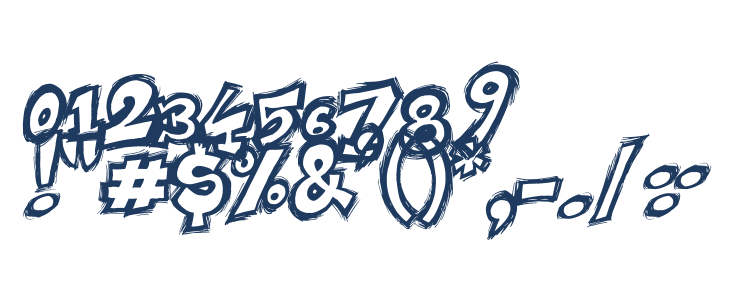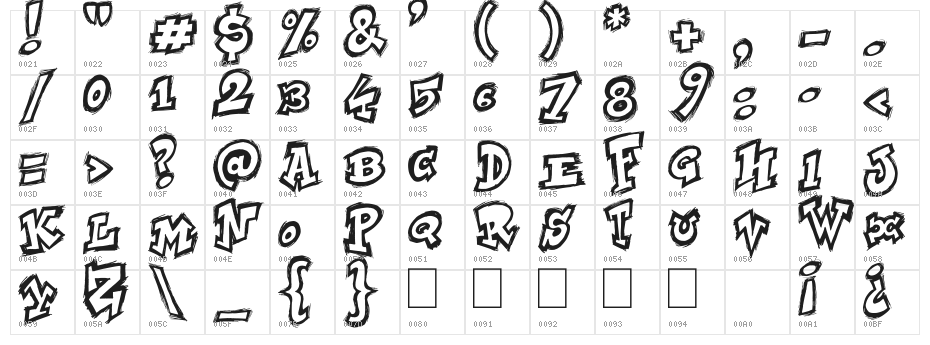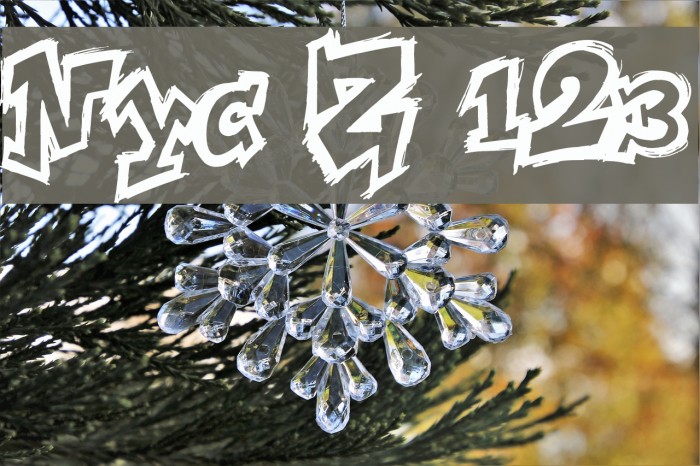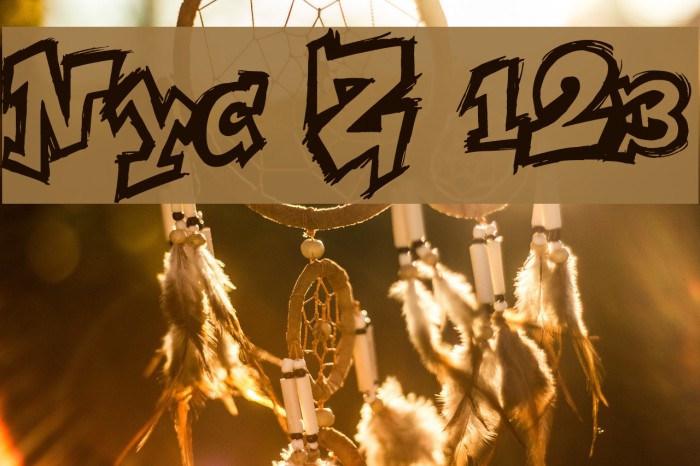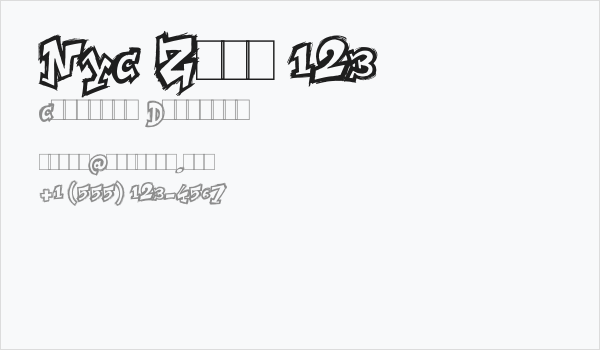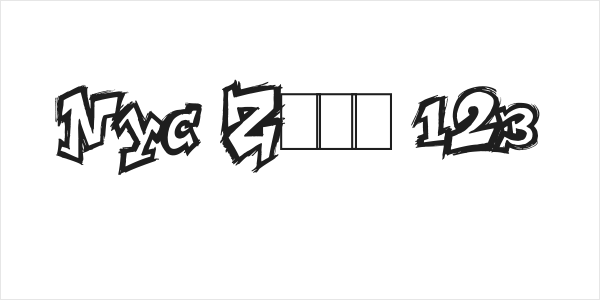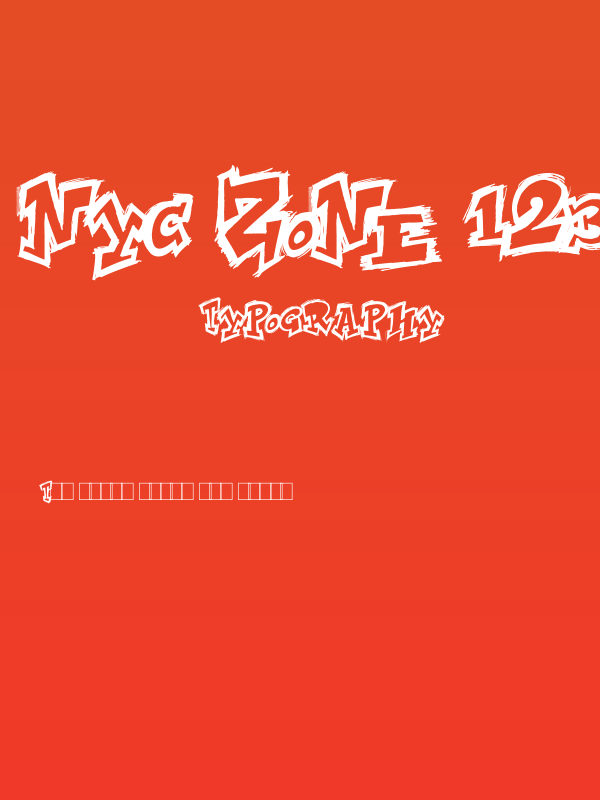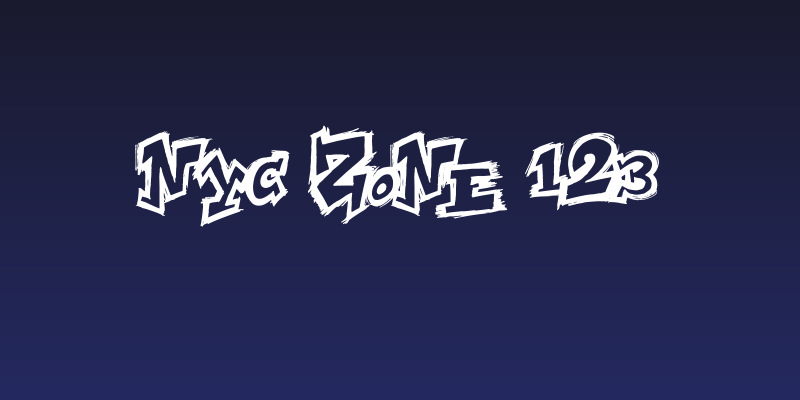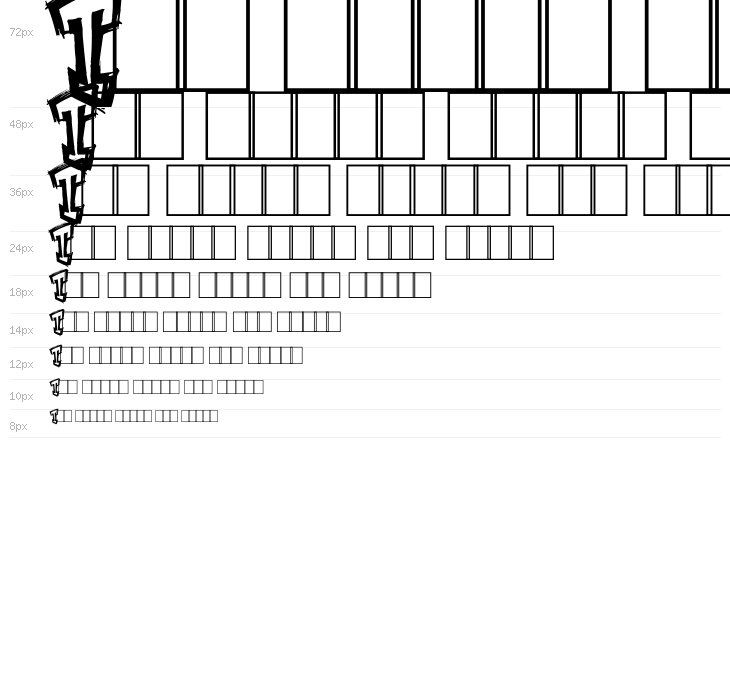
NYC Zone 123 Font
NYC Zone 123 Description
This font features a bold, energetic style with a graffiti-like appearance. The characters are dynamic and irregular, with sharp angles and exaggerated forms that convey a sense of movement and excitement. The uppercase and lowercase letters maintain a consistent style, with thick strokes and a rough, hand-drawn texture. The numbers and special characters follow the same aesthetic, adding to the font's cohesive look. This font is ideal for projects that require a bold, urban, and edgy feel, making it perfect for street art, posters, and music album covers.
| Overall Style | Urban, Edgy, Graffiti |
| Proposed Projects | Street art designs, music album covers, edgy posters, urban-themed branding. |